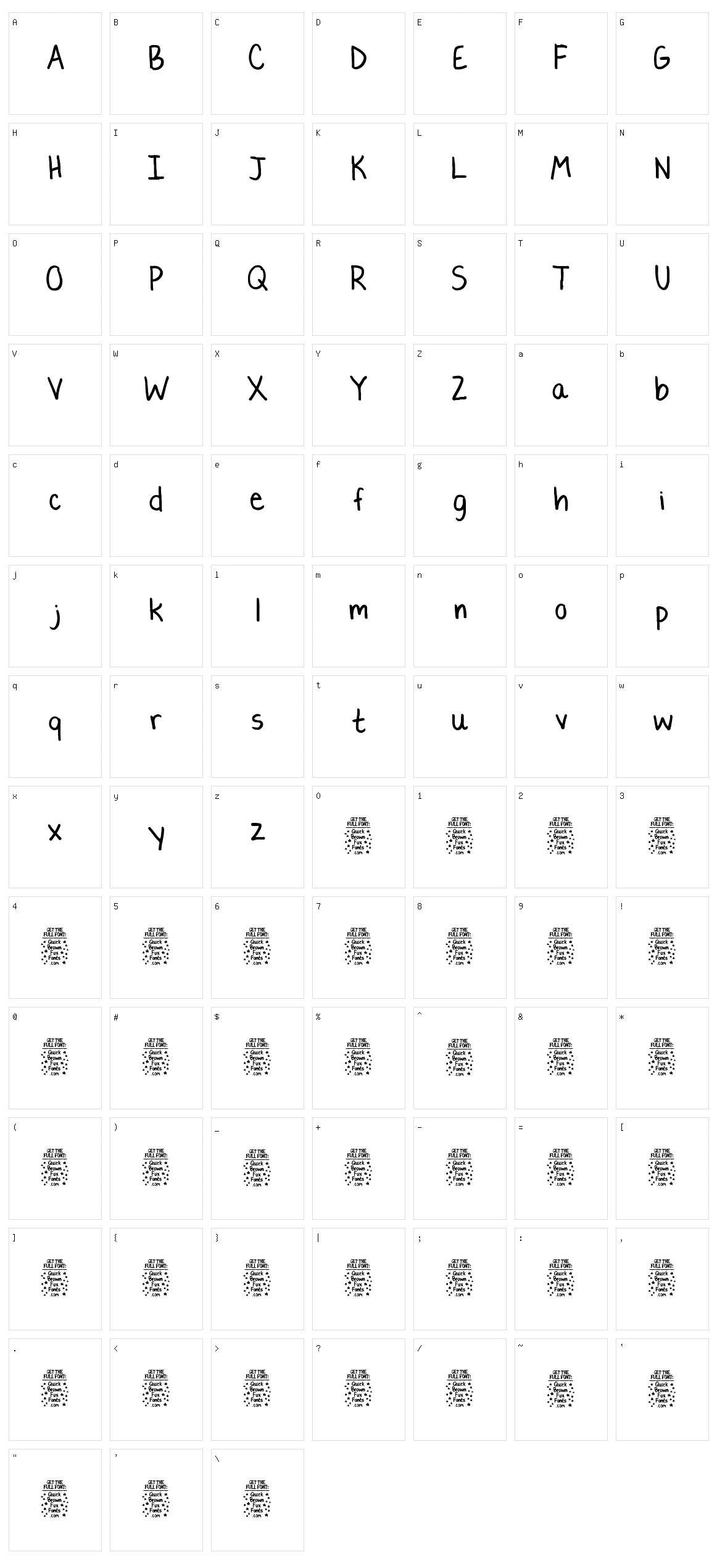
The free font Lauren C. Brown is carefully designed by Quick Brown Fox Fonts, showcasing a thoughtful balance of creativity and usability and falls under the Script font style. When you download the ZIP file, it contains only 68.33 KB of font files, making it lightweight and quick to download. Please review the license details below to understand permitted usage and distribution rights. If license information is not available, we recommend using this font for personal projects only or contacting the author directly for commercial usage permissions.